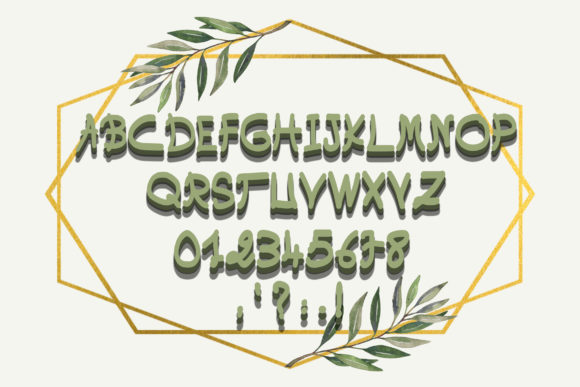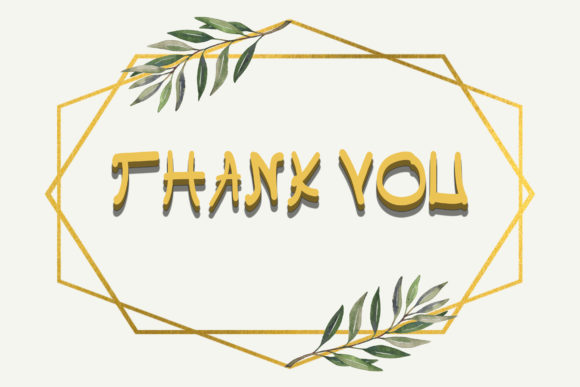
The Ultimate Guide to Ggngee Mega Font: A Cute and Versatile Handwritten Font
An Honest Review of Ggngee Mega Font
So, what makes Ggngee Mega Font so special? Let’s dive into the good stuff! 🤩
- ✨ Cute and playful: Ggngee Mega Font has a charming, casual feel that’s perfect for projects that need a personal touch.
- ✅ Highly versatile: This font can be used for a wide range of projects, from invitations and greeting cards to social media graphics and blog posts.
- 💡 Easy to read: Despite its playful nature, Ggngee Mega Font is surprisingly easy to read, even at smaller font sizes.
Now, I’m not going to sugarcoat it – no font is perfect, and Ggngee Mega Font has a few minor quirks:
- 🤔 Limited formal use: Due to its casual nature, Ggngee Mega Font might not be the best choice for formal projects or professional documents.
- ⚠️ Some letter variations: While the font has a great range of glyphs, some users might find the letter variations a bit limited.
The Designer Inspiration Behind Ggngee Mega Font
While the true story behind Ggngee Mega Font’s creation might be a mystery, it’s easy to imagine a designer who loves playful typography and wants to bring joy to their users. Perhaps they drew inspiration from childhood memories of handwritten notes and colorful drawings. Whatever the story, Ggngee Mega Font is sure to bring a smile to your face!
| Font Name | Ggngee Mega Font |
| Author | Funnyarti |
| Does Ggngee Mega Font support OpenType features? | Yes, Ggngee Mega Font supports OpenType features, including stylistic alternates and glyphs. |